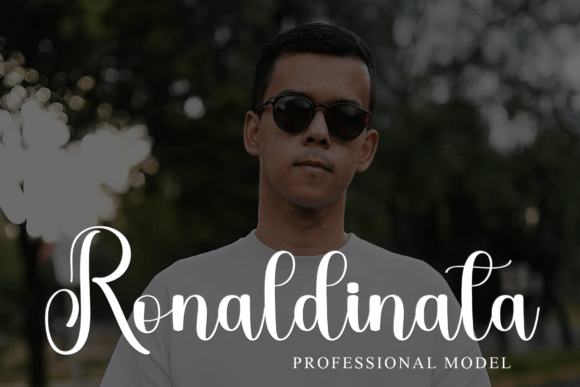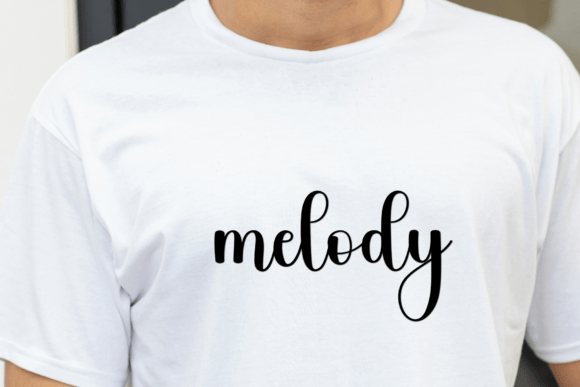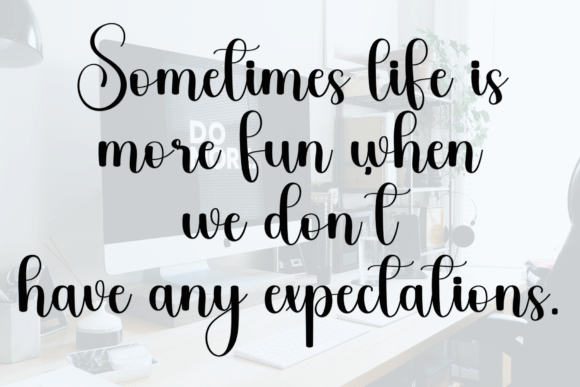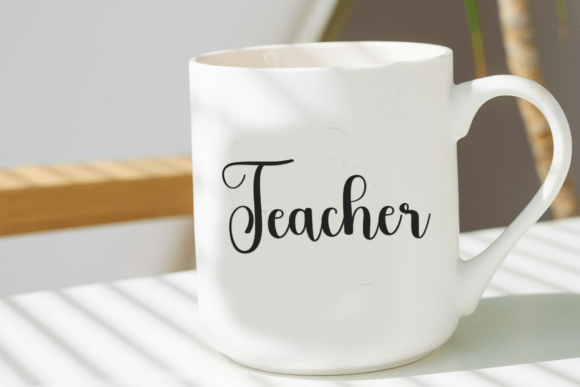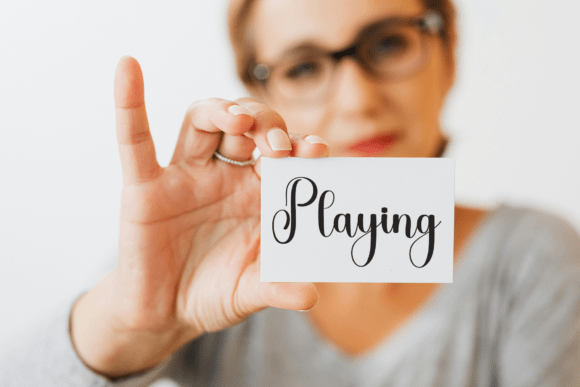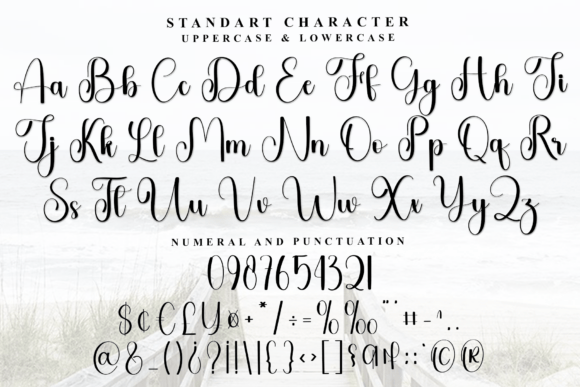
Introduction to Rumble Daylight Font
Do you remember that moment when you finally find the perfect font for your project, and everything just falls into place? It’s like finding a needle in a haystack, but instead, you stumble upon a treasure trove of creative possibilities. For designers, discovering the right font can make all the difference in bringing their vision to life. That’s exactly what happens when you come across the Rumble Daylight Font, a flowing handwritten font that exudes elegance and sophistication.
Imagine having a font that’s not only beautiful but also versatile, allowing you to create stunning designs with a transparent background. The Rumble Daylight Font is that and more, making it an essential resource for designers who want to take their projects to the next level.
Key Features of Rumble Daylight Font
- The font is available in a single weight, providing a clean and minimalist look perfect for various design projects.
- Perfect for use in digital design, including logos, icons, and graphics, due to its modern and sleek design.
Honest Review: Rumble Daylight Font
I recently had the chance to work with the Rumble Daylight Font, and I must say it’s been a game-changer for my design projects. The font is a high-quality design resource that offers a modern and clean aesthetic.
What works well: ✨ The font’s versatility is impressive. It’s suitable for a wide range of creative projects, from business presentations to social media graphics. The font also features a transparent background, making it easy to customize and integrate with other design elements.
- The font is highly legible, making it perfect for body text and headings.
- The font is available in a variety of weights and styles, giving designers plenty of options for customization.
⚠️ However, one limitation of the font is that it may not be suitable for more traditional or formal design projects. The font’s modern aesthetic may come across as too casual for certain applications.
Overall, I’m impressed with the Rumble Daylight Font. It’s a valuable addition to any designer’s toolkit, and I would highly recommend it to anyone looking for a high-quality, modern font.
Tips for Getting the Most Out of Rumble Daylight Font
To get the most out of Rumble Daylight Font, experiment with different font sizes, colors, and styles to create unique and eye-catching designs. You can also use the font in combination with other design elements, such as images or graphics, to create a visually appealing project.
Rumble Daylight Font is perfect for a variety of creative projects, including social media graphics, marketing materials, presentations, reports, and documents. Its high quality and transparent background make it a valuable design resource for anyone looking to create visually appealing and professional-looking designs.